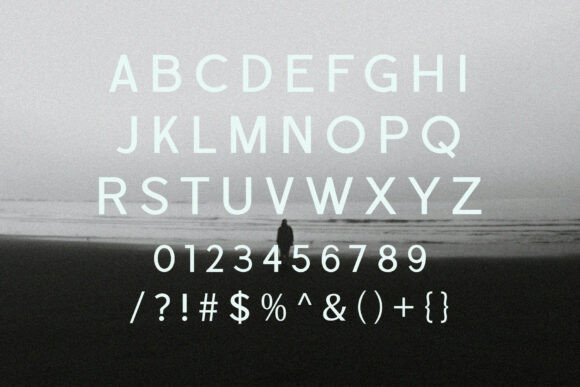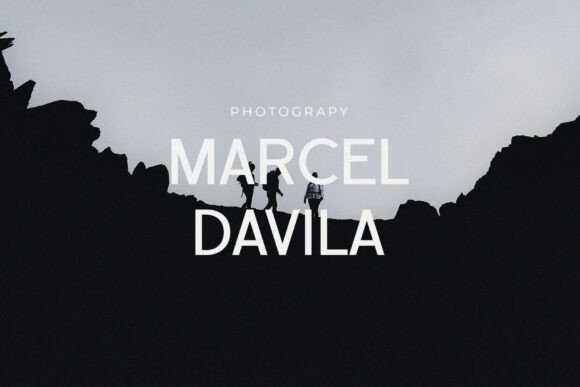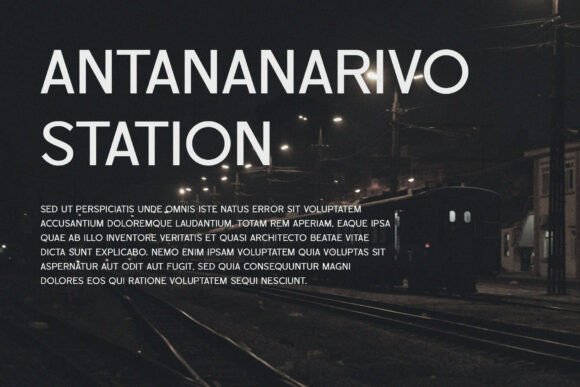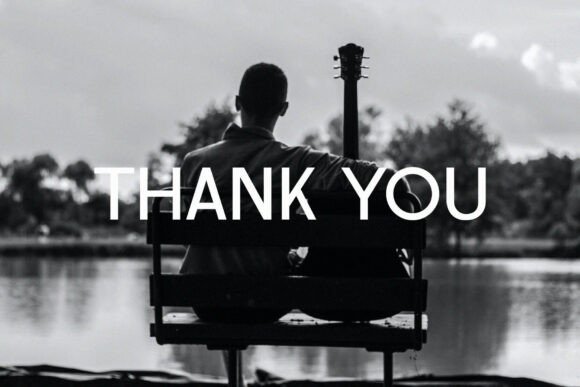
Banter Font: Elevate Your Designs with a Sleek and Modern Sans-Serif Typeface
In the world of typography, a font can make or break a design. When it comes to creating modern and polished visual content, the right font is essential. Introducing Banter, a sleek and clean sans-serif font designed specifically for contemporary projects. With its balanced spacing and versatile structure, Banter is the perfect choice for designers and crafters looking to elevate their branding, websites, movie posters, and promotional materials.
What Makes Banter Font Stand Out?
Banter’s design is centered around simplicity and elegance. Its clean lines, balanced spacing, and versatile structure make it an excellent choice for a wide range of applications. Here are some key features that set Banter apart:
- Clean and Sleek Design: Banter’s sans-serif design ensures that your text remains clear and legible, even at smaller font sizes.
- Balanced Spacing: The font’s carefully crafted spacing ensures that your text flows smoothly, making it perfect for long-form content or short, punchy headlines.
- Versatile Structure: Banter’s structure allows it to adapt seamlessly to different contexts, from digital screens to print materials.
Use Cases for Banter Font
Banter’s versatility makes it an excellent choice for a variety of design projects. Here are some use cases where Banter shines:
- Branding: Establish a strong brand identity with Banter’s modern and polished feel. Use it for logos, business cards, and letterheads to create a cohesive look.
- Websites: Enhance your website’s typography with Banter’s clean and legible design. It’s perfect for headings, paragraphs, and UI elements.
- Movie Posters: Create eye-catching movie posters with Banter’s bold and sleek design. Its versatility ensures that it will work well for a wide range of genres and styles.
- Promotional Materials: Use Banter for brochures, flyers, and other promotional materials to create a professional and contemporary look.
Benefits of Using Banter Font
By choosing Banter for your design projects, you’ll enjoy several benefits:
- Improved Readability: Banter’s clean design and balanced spacing ensure that your text is easy to read, even for extended periods.
- Enhanced Visual Appeal: Banter’s sleek and modern design adds a touch of sophistication to your visual content, making it more engaging and attention-grabbing.
- Cross-Platform Compatibility: Banter works seamlessly across print and digital applications, making it a versatile choice for designers and crafters.
Tips for Using Banter Font Effectively
To get the most out of Banter, follow these tips:
- Experiment with Font Sizes: Banter works well at a variety of font sizes, so don’t be afraid to experiment to find the perfect size for your design.
- Pair it with Other Fonts: Banter pairs well with other sans-serif fonts, but feel free to experiment with serif fonts for added contrast.
- Pay Attention to Line Height: Adjust the line height to ensure that your text flows smoothly and is easy to read.